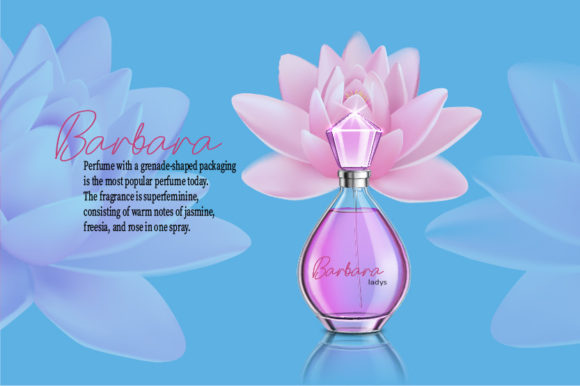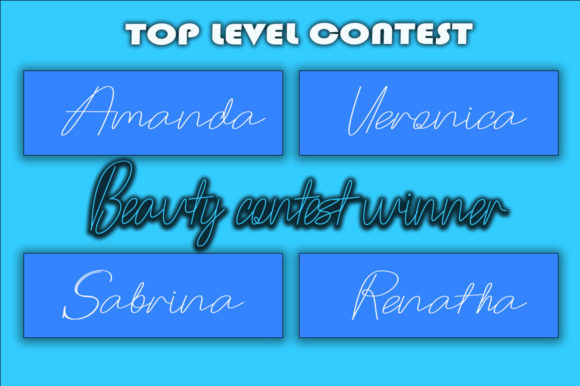
About Kintamani Font
Kintamani is a delicate and thin lettered handwritten font. It looks beautiful on a variety of designs requiring a personalized style. This font is PUA encoded which means you can access all glyphs and swashes with ease!